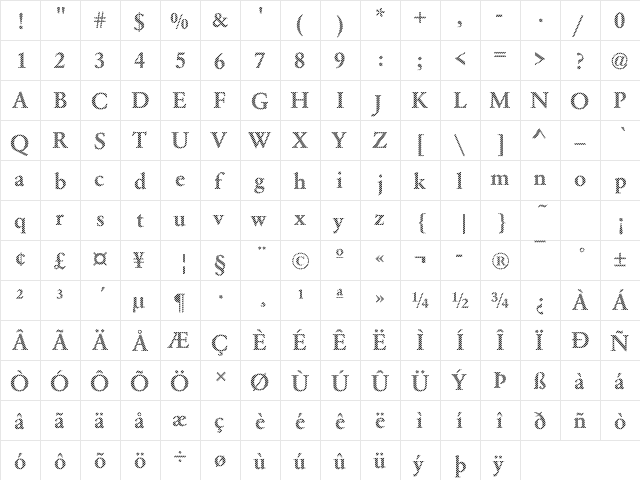
Garamond04 Becker Regular Font Preview
Garamond04 Becker Regular
Design Context for Garamond04 Becker Typeface
Garamond04 Becker takes a measured approach to typography — its balanced proportions and neutral character make it a reliable workhorse for both digital and print work.